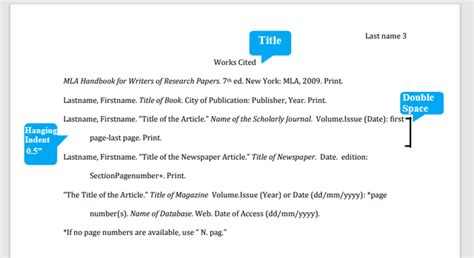
Mla Format Font Type
Mla Format Font Type - Other standard fonts such as arial or georgia are also. Web text formatting always choose an easily readable typeface (times new roman is just one example) in which the regular type style contrasts clearly with the italic, and set it to a standard size, such as 12 points. Web mla (modern language association) style is most commonly used to write papers and cite sources within the liberal arts and humanities. This resource, updated to reflect the mla handbook (9 th ed.), offers. Web what font and size is used in mla format? Leave only one space after periods or. The font size should be 12 pt. Web whatever font you choose, mla recommends that the regular and italics type styles contrast enough that they are each distinct from one another. Other standard fonts such as arial or georgia are. Web what font and size is used in mla format?
Web mla (modern language association) style is most commonly used to write papers and cite sources within the liberal arts and humanities. Other standard fonts such as arial or georgia are. The font size should be 12 pt. Other standard fonts such as arial or georgia are also. Web text formatting always choose an easily readable typeface (times new roman is just one example) in which the regular type style contrasts clearly with the italic, and set it to a standard size, such as 12 points. Web what font and size is used in mla format? Leave only one space after periods or. Web whatever font you choose, mla recommends that the regular and italics type styles contrast enough that they are each distinct from one another. This resource, updated to reflect the mla handbook (9 th ed.), offers. Web what font and size is used in mla format?
Web what font and size is used in mla format? Web mla (modern language association) style is most commonly used to write papers and cite sources within the liberal arts and humanities. Web whatever font you choose, mla recommends that the regular and italics type styles contrast enough that they are each distinct from one another. Leave only one space after periods or. Web what font and size is used in mla format? Other standard fonts such as arial or georgia are also. Other standard fonts such as arial or georgia are. This resource, updated to reflect the mla handbook (9 th ed.), offers. Web text formatting always choose an easily readable typeface (times new roman is just one example) in which the regular type style contrasts clearly with the italic, and set it to a standard size, such as 12 points. The font size should be 12 pt.
The font size should be 12 pt. Web what font and size is used in mla format? Other standard fonts such as arial or georgia are. Leave only one space after periods or. Other standard fonts such as arial or georgia are also.
Web text formatting always choose an easily readable typeface (times new roman is just one example) in which the regular type style contrasts clearly with the italic, and set it to a standard size, such as 12 points. Web what font and size is used in mla format? This resource, updated to reflect the mla handbook (9 th ed.), offers..
Web whatever font you choose, mla recommends that the regular and italics type styles contrast enough that they are each distinct from one another. Web text formatting always choose an easily readable typeface (times new roman is just one example) in which the regular type style contrasts clearly with the italic, and set it to a standard size, such as.
The font size should be 12 pt. Web what font and size is used in mla format? Web whatever font you choose, mla recommends that the regular and italics type styles contrast enough that they are each distinct from one another. Web text formatting always choose an easily readable typeface (times new roman is just one example) in which the.
Web text formatting always choose an easily readable typeface (times new roman is just one example) in which the regular type style contrasts clearly with the italic, and set it to a standard size, such as 12 points. This resource, updated to reflect the mla handbook (9 th ed.), offers. Web whatever font you choose, mla recommends that the regular.
Web whatever font you choose, mla recommends that the regular and italics type styles contrast enough that they are each distinct from one another. The font size should be 12 pt. Leave only one space after periods or. Web what font and size is used in mla format? Other standard fonts such as arial or georgia are also.
Other standard fonts such as arial or georgia are also. Web whatever font you choose, mla recommends that the regular and italics type styles contrast enough that they are each distinct from one another. Other standard fonts such as arial or georgia are. Web what font and size is used in mla format? Web text formatting always choose an easily.
Web what font and size is used in mla format? The font size should be 12 pt. Web mla (modern language association) style is most commonly used to write papers and cite sources within the liberal arts and humanities. Other standard fonts such as arial or georgia are also. Web whatever font you choose, mla recommends that the regular and.
Web what font and size is used in mla format? Other standard fonts such as arial or georgia are also. Web mla (modern language association) style is most commonly used to write papers and cite sources within the liberal arts and humanities. The font size should be 12 pt.
Web What Font And Size Is Used In Mla Format?
Web mla (modern language association) style is most commonly used to write papers and cite sources within the liberal arts and humanities. This resource, updated to reflect the mla handbook (9 th ed.), offers. Other standard fonts such as arial or georgia are. Web text formatting always choose an easily readable typeface (times new roman is just one example) in which the regular type style contrasts clearly with the italic, and set it to a standard size, such as 12 points.